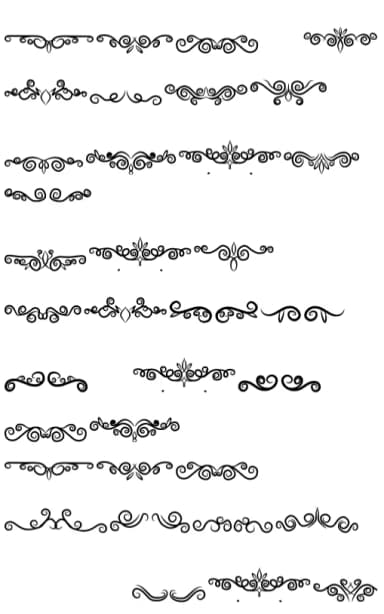
Butterfly Divider features hand-drawn ornamental dividers and decorative flourishes rendered in a playful doodle style that brings genuine warmth to layouts and page designs. Created by CraftedType Studio, this dingbat font combines whimsical linework with a distinctly coastal aesthetic, making it equally effective in digital projects or traditional print applications. The generous variety of dividers and ornament shapes gives you multiple ways to add visual interest and rhythm without overwhelming the composition.
These ornaments work brilliantly for wedding invitation suites, where they frame text blocks or separate sections with distinctive personality and flair. Etsy shop owners often reach for this font when designing product labels and boutique packaging, particularly for skincare brands, artisanal candles, or handmade goods seeking that authentic handcrafted feel. Social media graphics benefit from the playful linework too, whether you're sharing beach-themed content or promoting summer events and seasonal campaigns. Scrapbooking pages and greeting cards gain unexpected dimension from these dividers. The hand-drawn quality ensures each element carries character without tipping into precious or overwrought territory.
Butterfly Divider Font is a versatile dingbats font that works for both headings and body text. Pair it with a contrasting sans-serif or serif font to add visual interest and a clear distinction between titles and body copy.